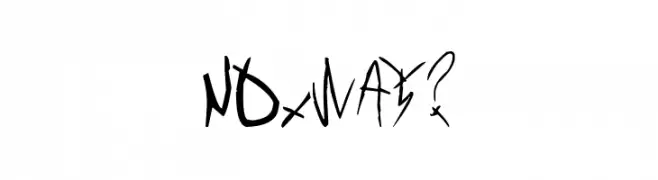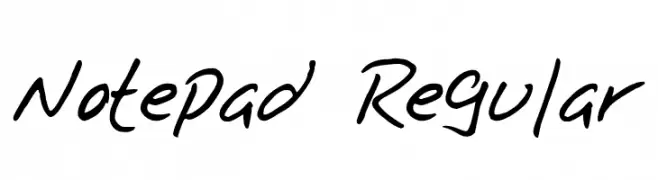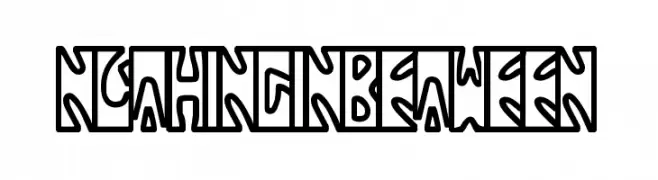
A bold, condensed font with an industrial and retro feel.
A playful, handwritten font with a clean and casual style.
An Art Nouveau-inspired font with elegant, flowing lines and a modern twist.
A dynamic, hand-drawn font with sharp, angular strokes and an edgy style.